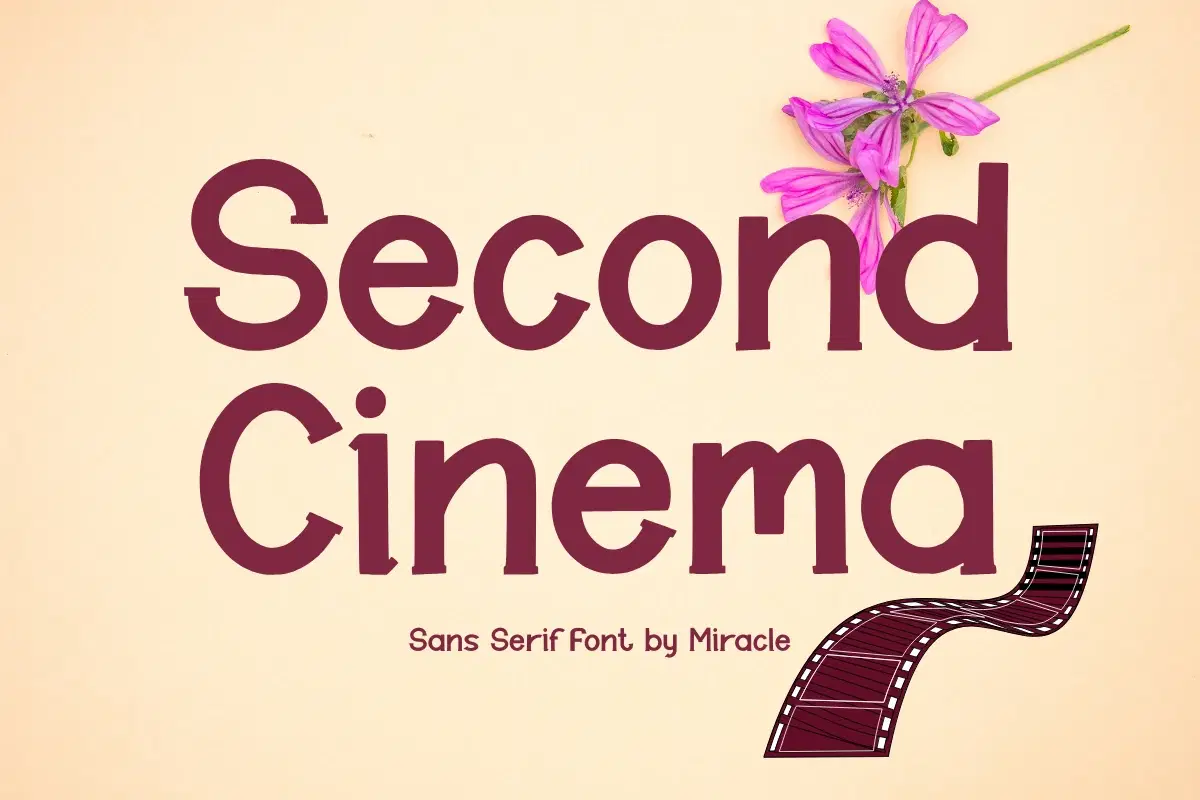
Step back into the golden age of style with Second Cinema, a timeless sans serif font by Miracle. Combining clean, structured letterforms with a subtle retro flair, this font is designed to evoke nostalgia while remaining perfectly suited for modern aesthetics. It is the ultimate choice for designers who want to blend classic cinematic charm with contemporary elegance.
Second Cinema is meticulously balanced for both readability and visual impact. Its sophisticated silhouette makes it a standout choice for high-end editorial work and vintage-inspired branding, providing a "classic film" feel to every character.